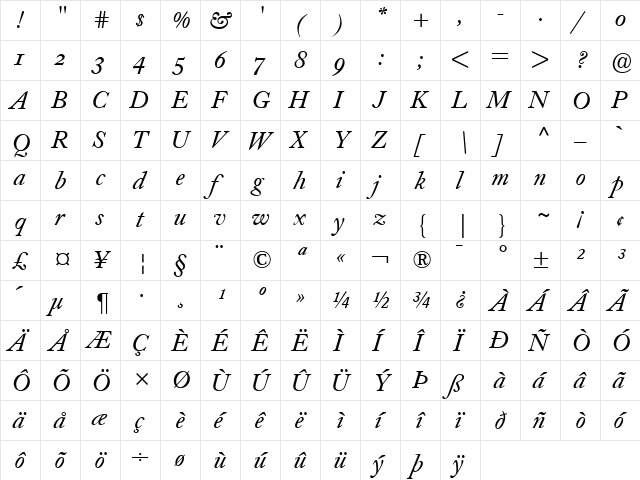
Caslon Book BE Italic
Design Context for Caslon Book BE Typeface
Caslon Book BE offers clean, dependable letterforms without strong stylistic allegiance, making it a practical choice for designers who need flexibility. The dynamic lean of this cut emphasises speed and emphasis in any layout.